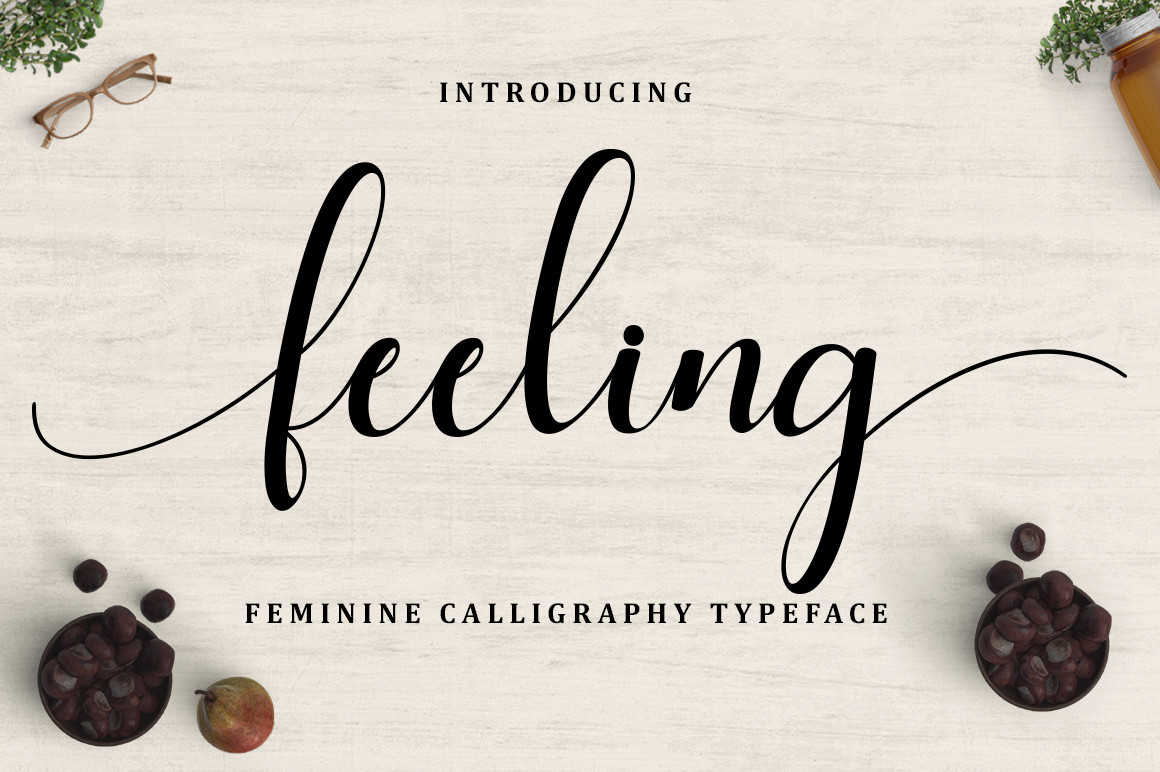
Feeling is an elegant script font. Use it for any design projects that require a charming appearance! This font is PUA encoded, which means you can access all of the glyphs and swashes with ease!